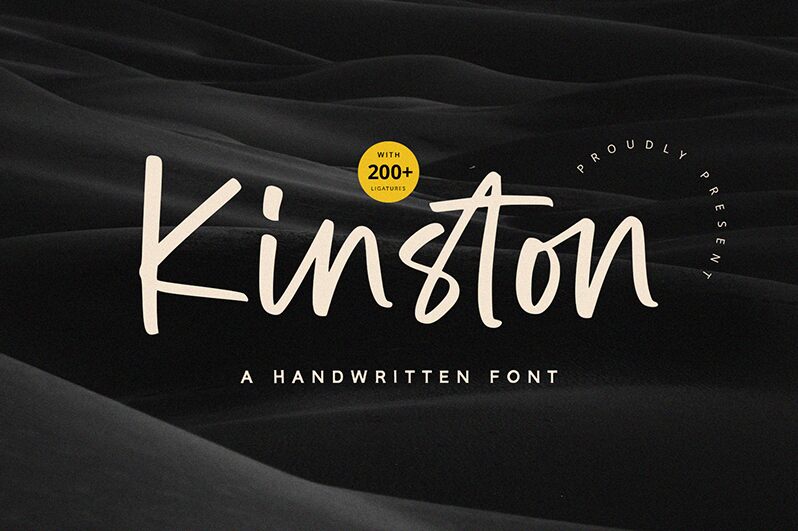
Kinston
Kinston font is a handwritten typeface designed by Alpaprana Studio. It aims to bring casualness and authentic personality wherever it is used. With its spontaneous vibe, this free font successfully combines a playful style and a relaxed spirit. The lettering of this exceptional aesthetic results in natural-looking designs that appear genuinely fresh and unfiltered.
The versatile style of Kinston suits modern branding, ad campaigns, packaging designs, book covers, invitations cards, posters artworks, social media posts, webpage headers and footers (and body texts), as well as t-shirts prints and other apparel items.